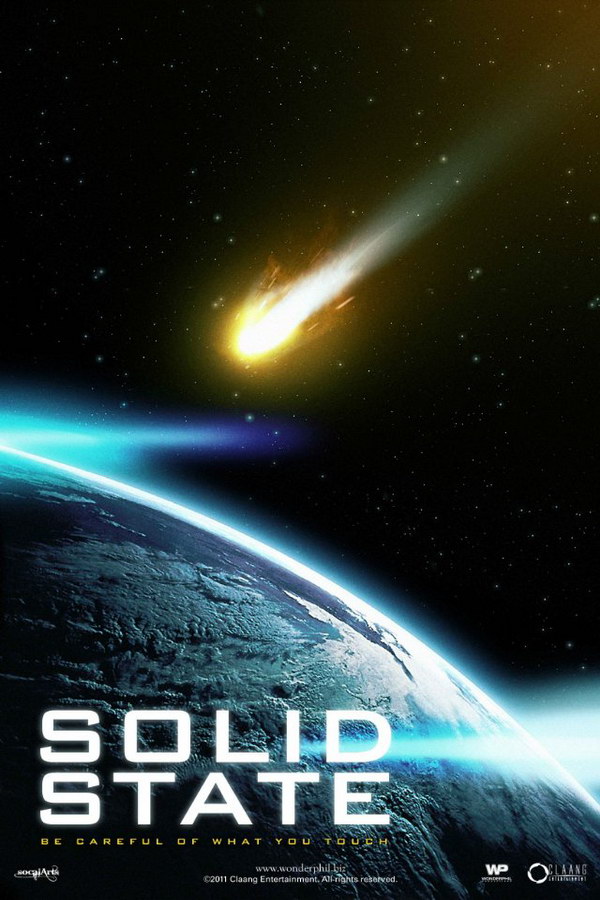
Solid State Font
Fonts in UseSolid State is a 2021 sci-fi movie directed by Stefano Milla about a neuroscientist who creates a device that can access a person's memories and consciousness, leading to unexpected consequences.
The "Solid State" poster features the title in Bank Gothic Medium, a square capital font designed by Morris Fuller Benton. This font is a commercial option and further information about it can be found here.